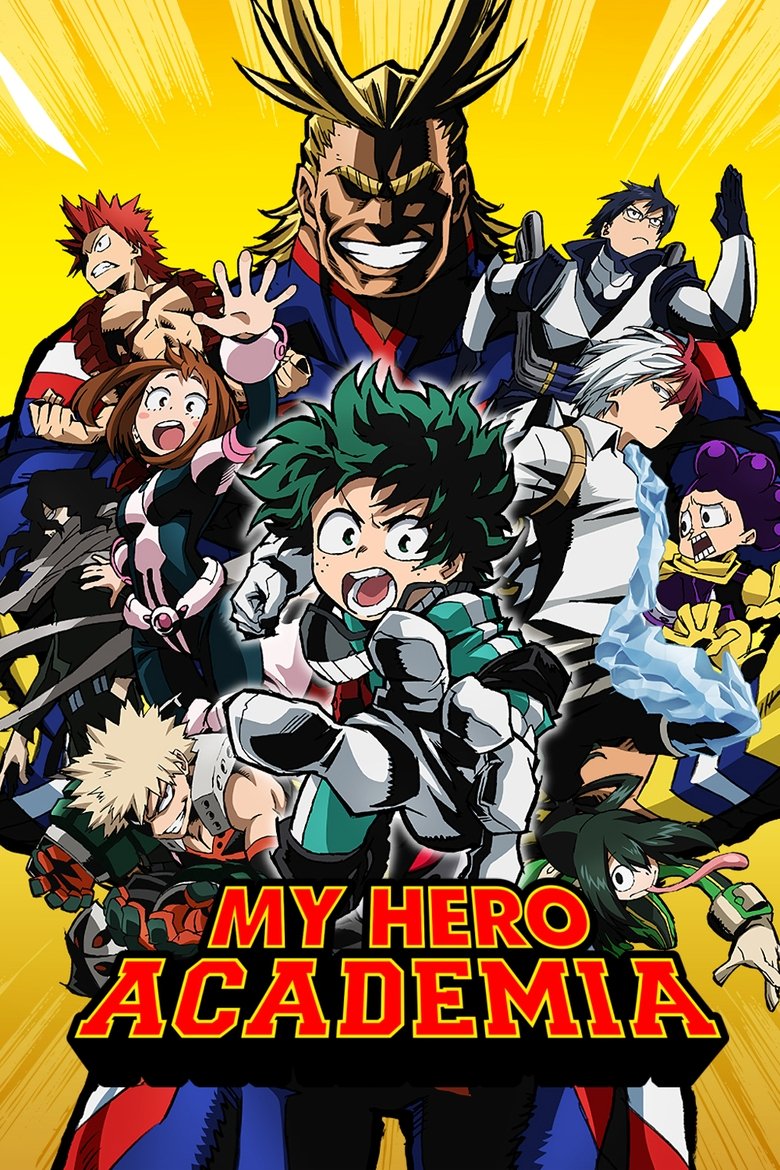
MY HERO ACADEMIA
About the My Hero Academia font
My Hero Academia's title is loud, heroic comic lettering. Bangers recreates that Plus-Ultra comic-book shout you can export freely.
What font is used in the My Hero Academia logo?+
The original My Hero Academia logo uses custom lettering. This generator recreates the look with Bangers — a free, open-license font you can style and download.